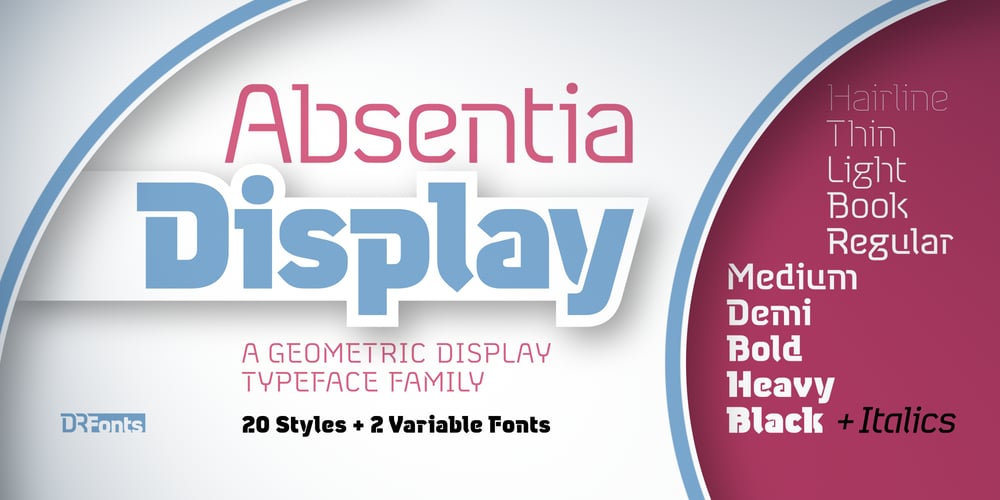
Absentia Display Font Family was designed by Daniel Robichaud and published by DR Fonts. Absentia Display contains 22 styles and family package options. This modern display typeface expands the Absentia collection with an impactful option for headlines, titles and logos. Graced with the geometric DNA of its distinctive lineage, the new addition emerges as a refreshing alternative for large size typesetting.Absentia Display borrows design attributes from the Sans and Slab families, in the form of slanted finials (‘a’, ‘e’, ‘C’) and one-sided serifs (‘b’, ‘F’, ‘H’). But in contrast to its relatives’ measured restraint, it distinguishes itself with uninhibited boldness. Featuring stencil face breaks, basic glyph components are either abridged or completely omitted, as the shoulder of lowercase ‘m’ or the diagonal stroke of capital ‘W’. Modular letterforms set this typeface apart with a stylish appearance; round diacritic dots (‘i’, ‘Ü’) and curved transitions (‘E’, ‘L’) breathe a lighthearted attitude.Designers can scale up and go loud with Absentia Display, available in ten weights with matching italics and two variable fonts. From the refined Hairline to the robust Black, this versatile family serves a wide range of needs and styles.